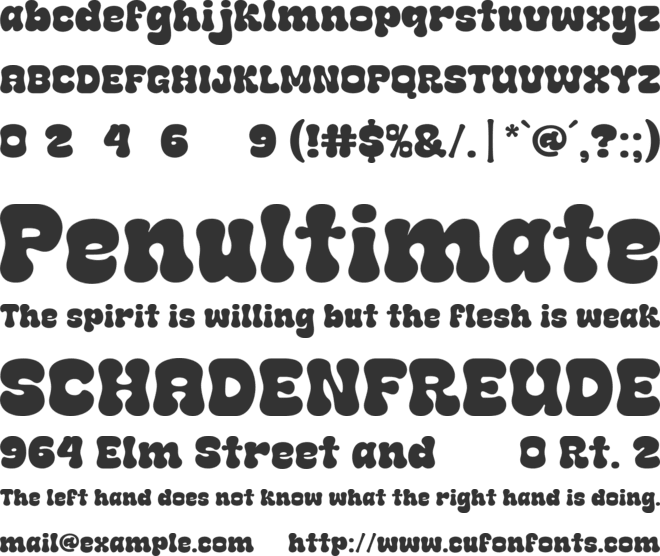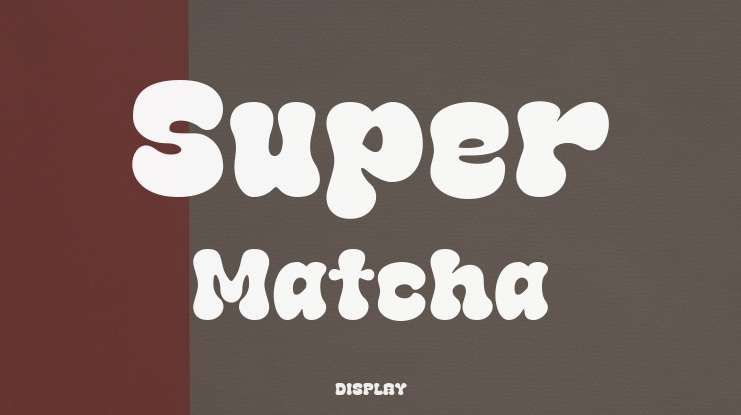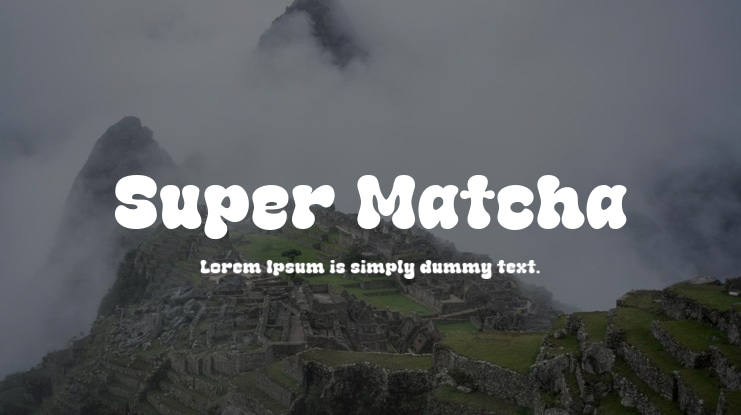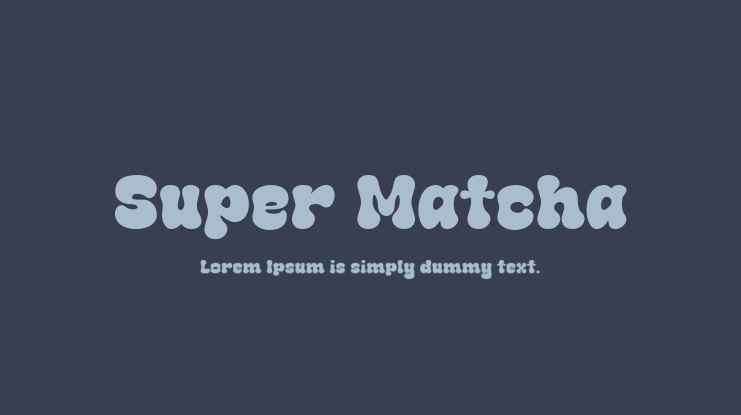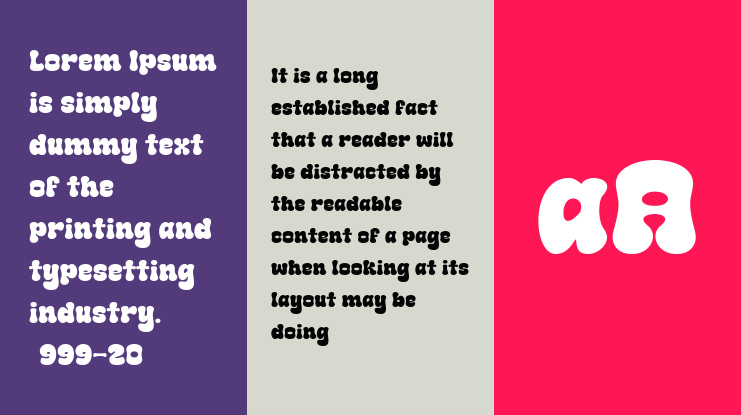
Super Matcha Font
Supercharge your designs with Super Matcha!
This funky font blends the boldness of a classic 70s typeface with a smooth, groovy feel. Imagine eye-catching posters and groovy packaging that pops. Super Matcha is perfect for adding a touch of retro charm and timeless appeal to your projects.